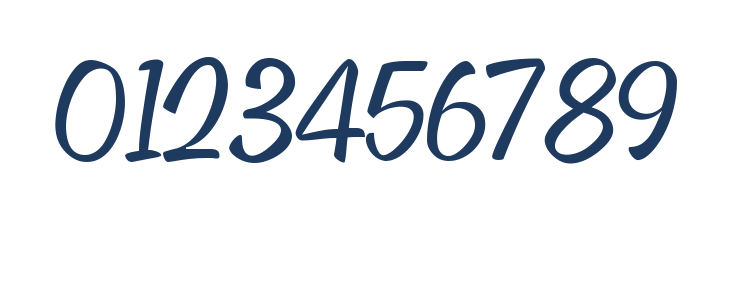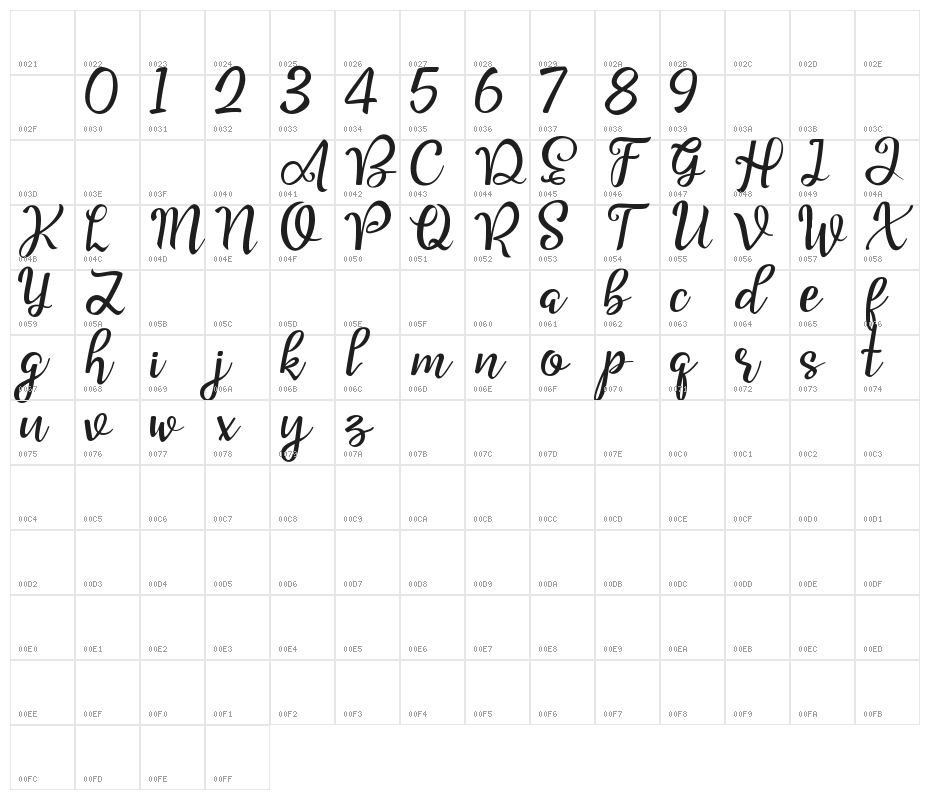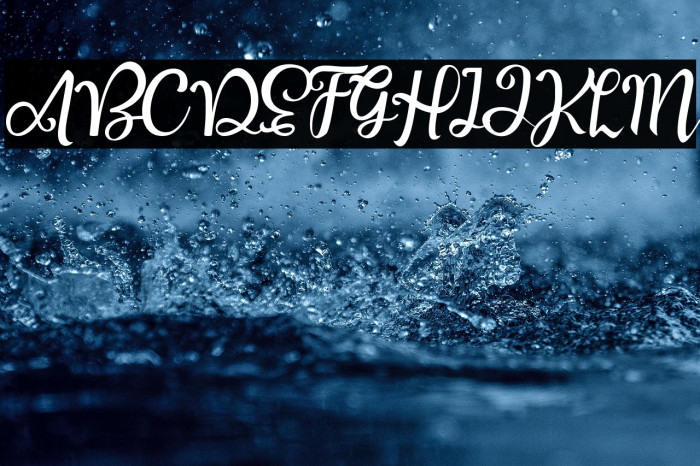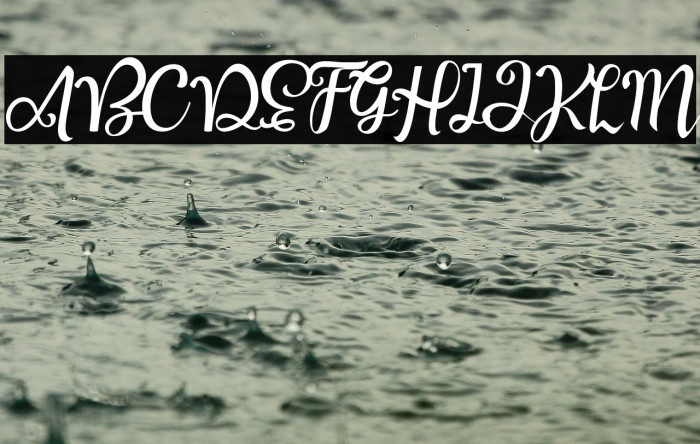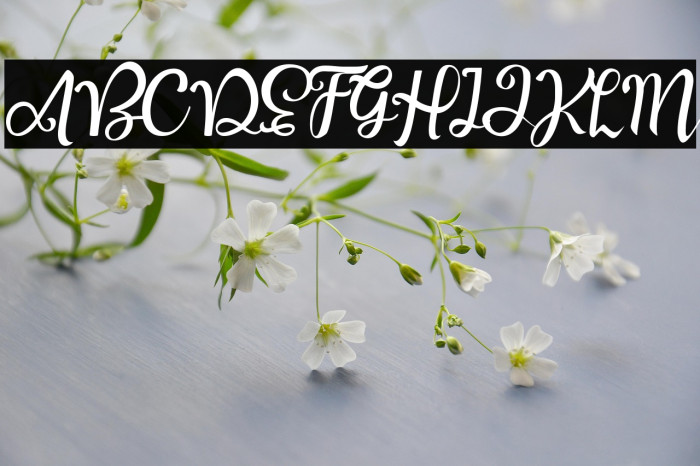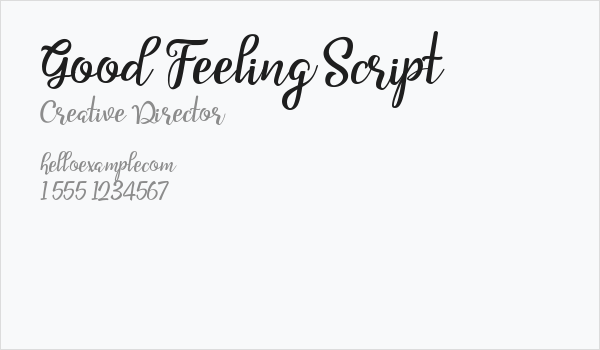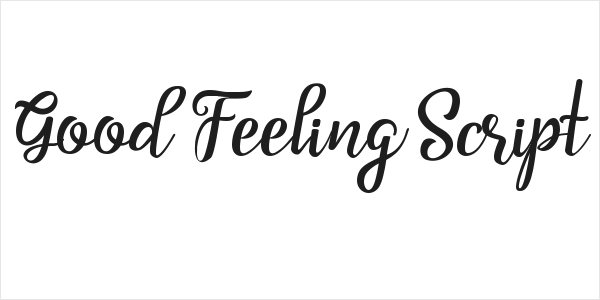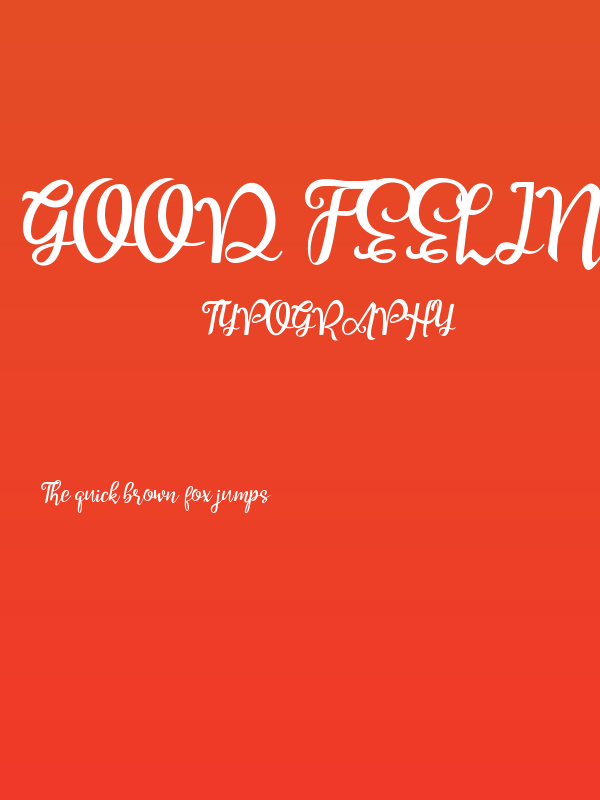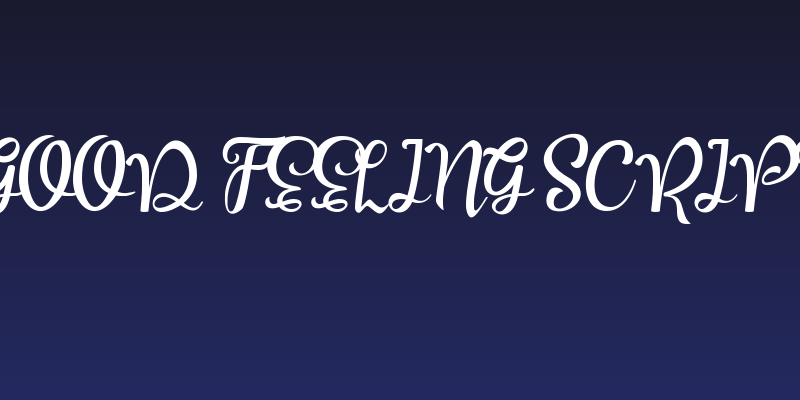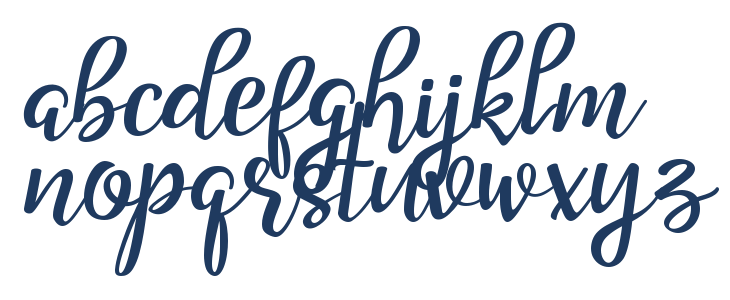
Good Feeling Script Font
Good Feeling Script Description
This font exudes a lively and expressive character, featuring a flowing script style that mimics the fluidity of handwriting. The uppercase letters are elegantly connected, with intricate loops and flourishes that add a touch of sophistication. The lowercase letters maintain a consistent rhythm, enhancing readability while preserving the font's artistic flair. Numbers are bold and clear, complementing the overall design. The special characters are seamlessly integrated, maintaining the font's cohesive look. This script font is perfect for projects that require a personal and creative touch.
| Use Case | Logos, Invitations, Greeting Cards |
| Proposed Projects | Ideal for wedding invitations, greeting cards, branding, and logo design. |